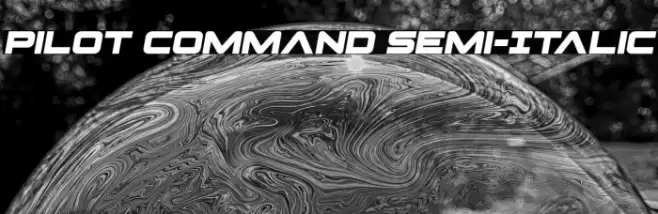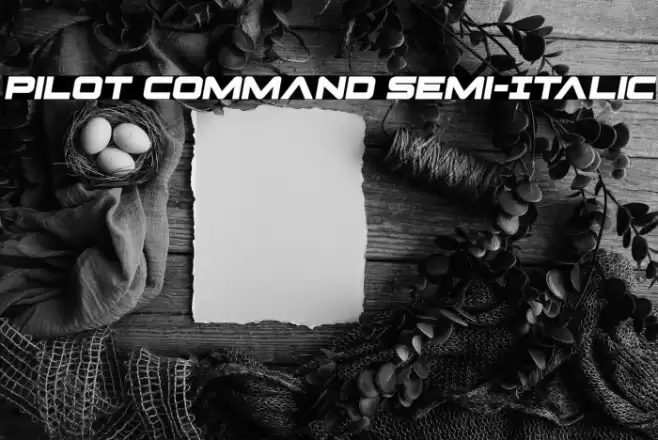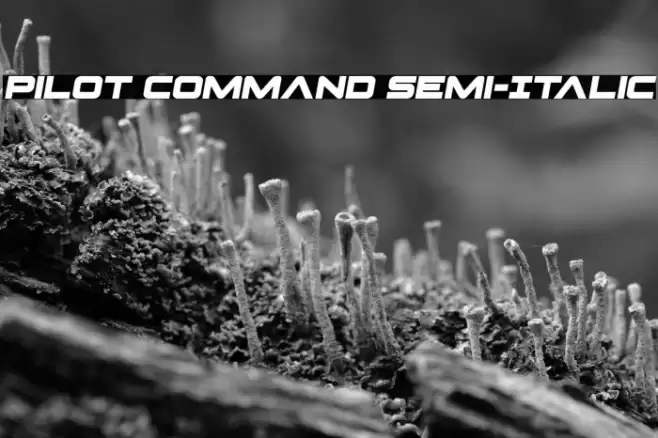
Pilot Command Semi-Italic Font
Pilot Command Semi-Italic Description
This font exhibits a bold and dynamic style with a semi-italic slant, giving it a sense of motion and energy. The characters are crafted with a modern, angular design, featuring sharp edges and a slightly condensed form. The uppercase and lowercase letters maintain a consistent style, with a futuristic and technical appearance. The numerals and special characters follow the same design principles, ensuring uniformity across the typeface. This font's strong presence and distinctive look make it suitable for impactful design projects.
A bold, semi-italic font with a modern, angular design from Uncategorized fonts.
- Proposed Projects: Ideal for technology branding, sports team logos, automotive advertisements, and dynamic poster designs.